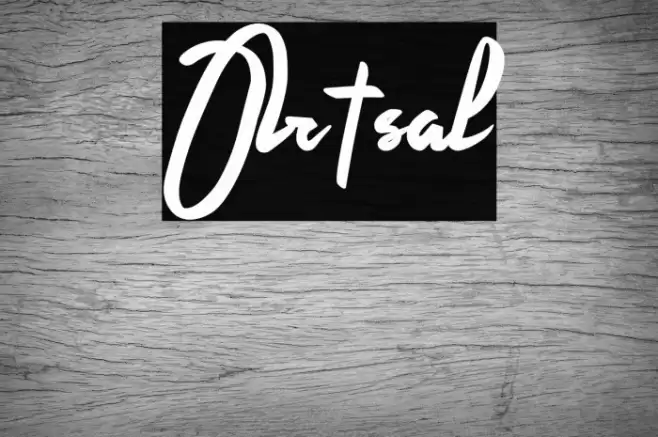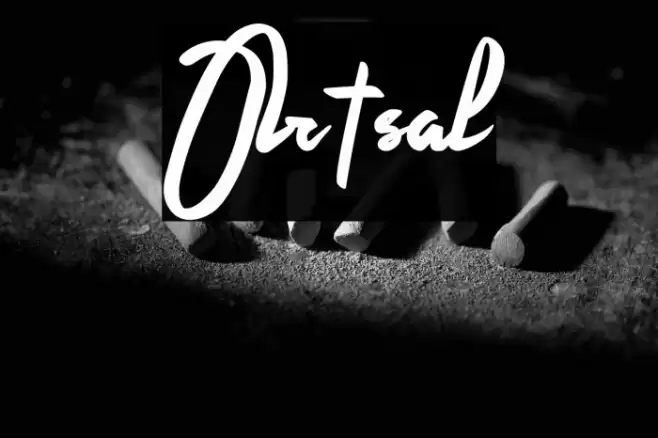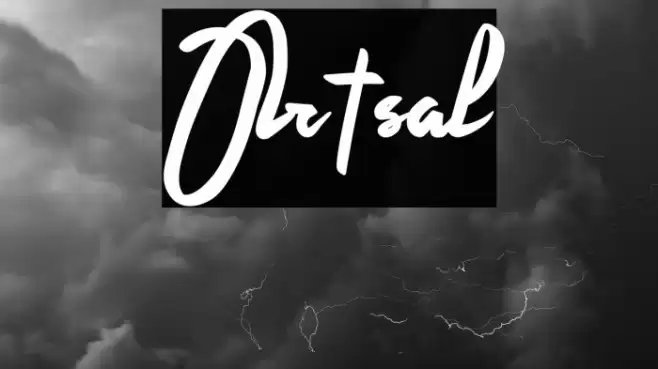
Ortsal Font
Ortsal Description
This font features a dynamic and expressive script style, characterized by its fluid, cursive strokes and a sense of movement. The uppercase letters are bold and slightly slanted, giving them a lively and energetic appearance. The lowercase letters maintain a consistent flow, with smooth connections between characters, enhancing the handwritten feel. The numerals are robust and clear, matching the overall boldness of the alphabet. Special characters are integrated seamlessly, maintaining the font's cohesive aesthetic. This font is ideal for projects that require a personal touch, such as invitations, greeting cards, or branding materials that aim to convey creativity and warmth.
A bold, cursive script font with fluid strokes and a lively appearance from Regular fonts.